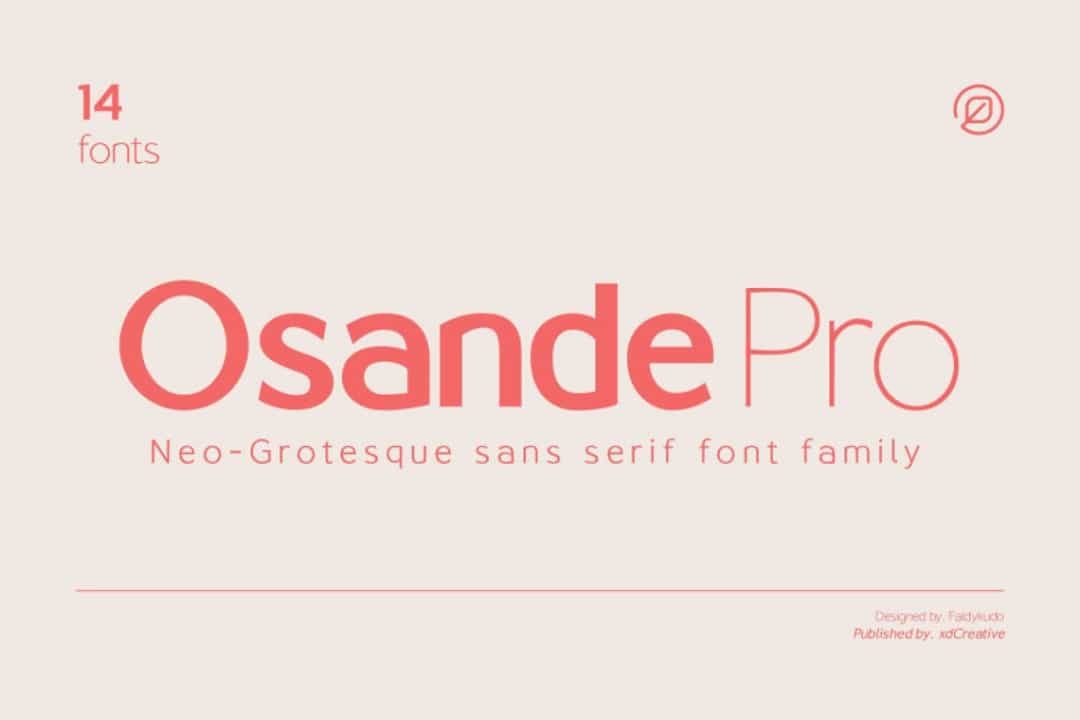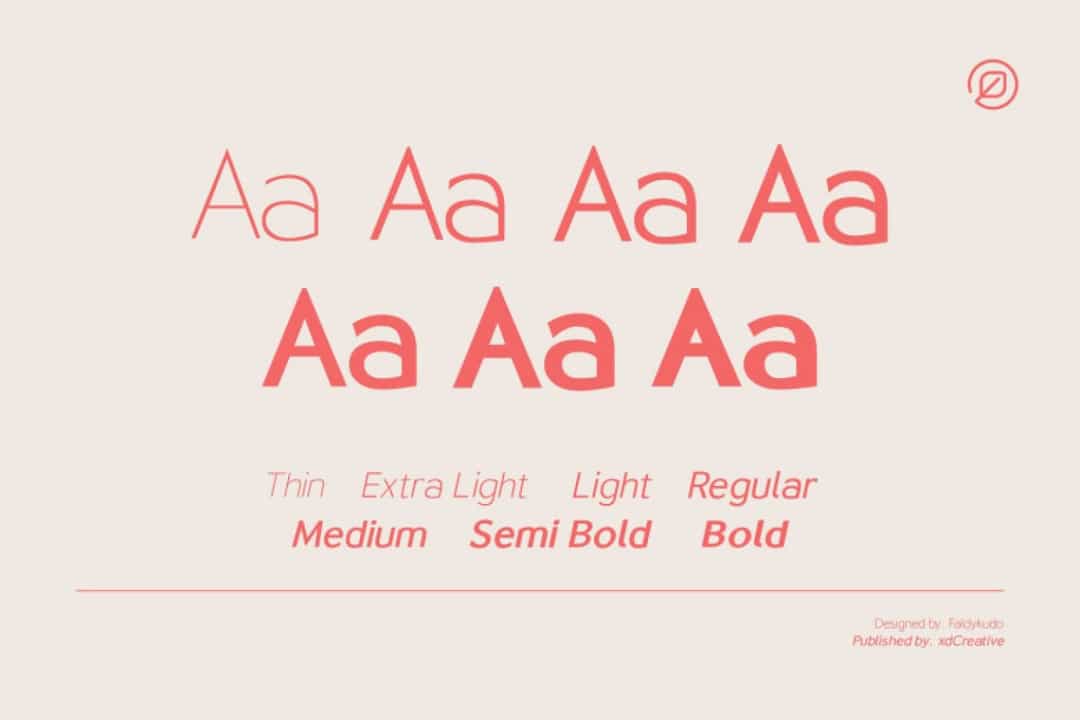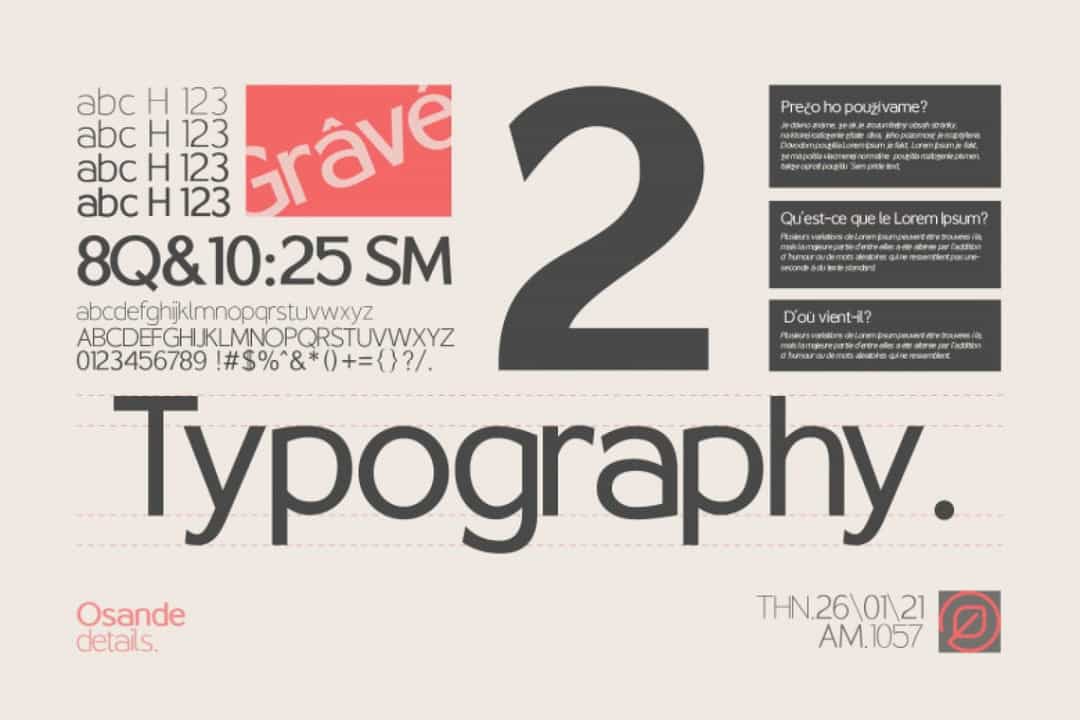
Discover Osande Font, part of the Sans Serif collection—a versatile and unique font perfect for adding a personal touch to your projects. Download it for free and enjoy crafting designs with style, from invitations to social media posts. This font is available exclusively for personal use, giving you the freedom to create without limits. Unlock your creativity with Osande Font today!
Osande can be best described as a modern sans serif font with a neo-Grotesque aesthetic and homogenous forms that feature low contrast strokes. Osande’s font family features italics, obliques, uprights and three distinct weights: Thin Extra Light Regular Medium Semi Bold Bold for each basic form (italics obliques uprights and italics obliques and uprights).